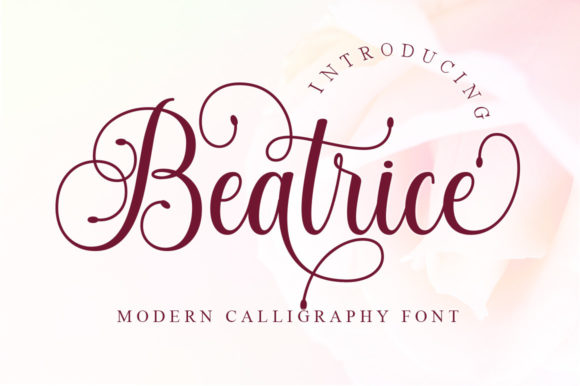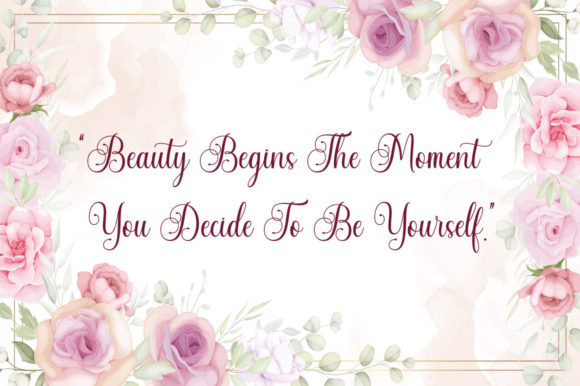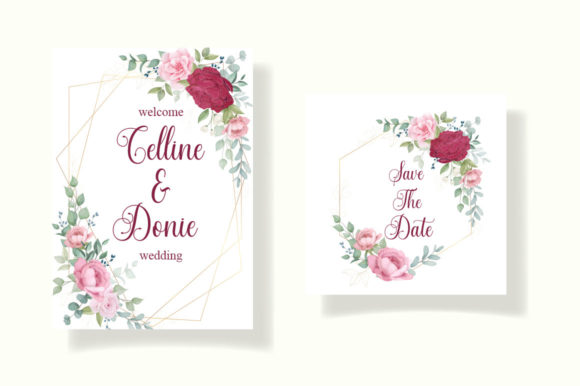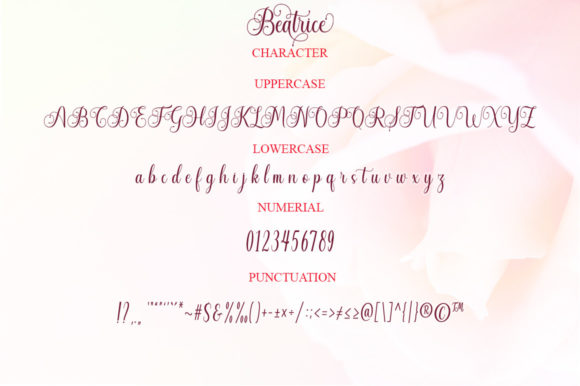
Beatrice Font: Elegant Handwritten Calligraphy for Wedding & Logo Design
About the Beatrice Font
Meet Beatrice Font, a stunning font that brings a touch of elegance and professionalism to any design. Beatrice is a lovely and timeless handwritten font. It is the best choice for creating eye catching logos, branding and quotes. This font is PUA encoded which means you can access all of the glyphs and swashes with ease!
Beatrice Font Usage Examples
Beatrice Font Example